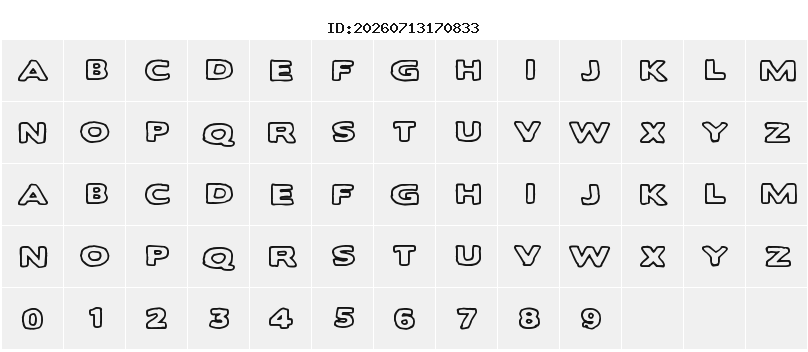
Balochisaurus Preview
• Font Name: Balochisaurus
• Full Font Name: Balochisaurus
About Balochisaurus.ttf
Balochisaurus.ttf is a modern, elegant sans-serif font designed for ultimate readability and visual harmony. Perfect for branding, headlines, web design, and print materials.